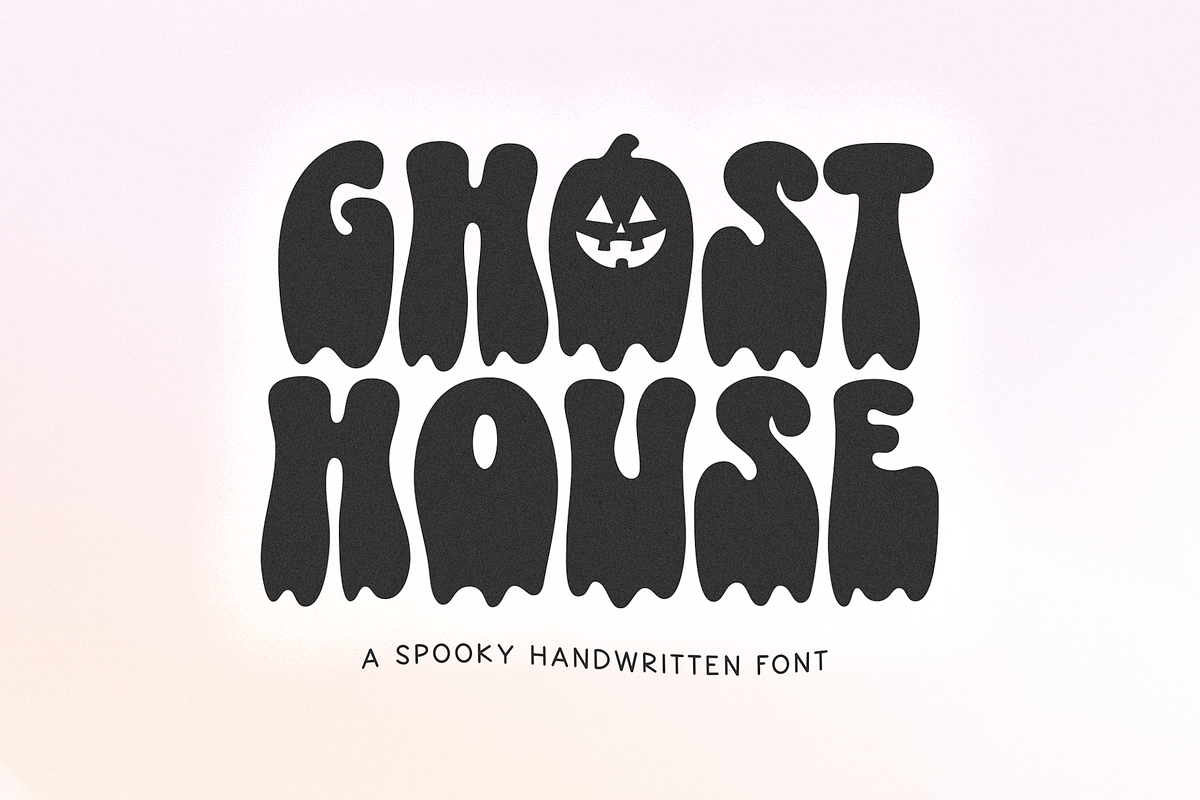
The Ghost House | Retro Drip Font Free Download is a unique and bold typeface that blends retro aesthetics with a drip effect, giving it a spooky, playful vibe. Perfect for Halloween-themed projects, posters, logos, and vintage branding, this font brings a creative edge to your designs. Whether you're designing for a horror movie, a retro brand, or any project that needs a bold, dripping style, Ghost House adds personality and flair.
Ghost House | Retro Drip Font Free Download is ideal for designers looking to add a touch of mystery and fun to their creative work. Its unique drip design makes it perfect for spooky, vintage, or playful projects. Download this eye-catching font today and bring a bold, retro vibe to your designs!